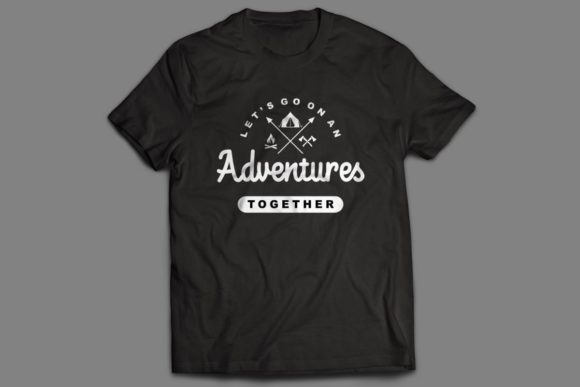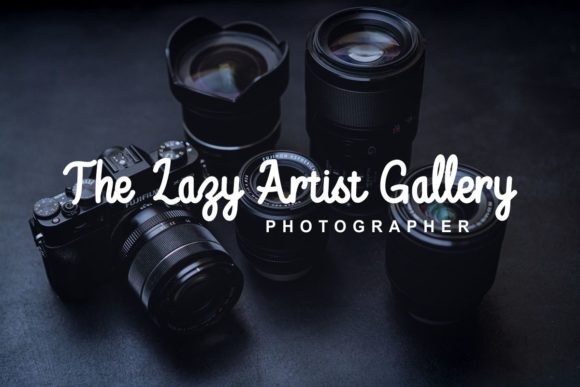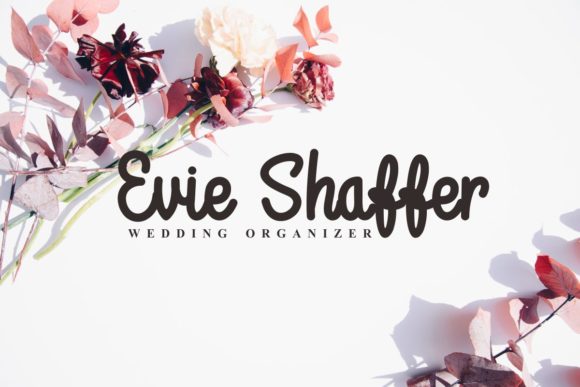
Introduction to Jessica Script Font
Have you ever stared at a blank page, eager to bring a creative idea to life, only to be held back by the perfect font? For designers, the right font can be the difference between a mediocre project and a masterpiece. It’s that moment of inspiration when the words flow effortlessly, and the design begins to take shape.
That’s where the Jessica Script Font comes in – a lovely, high-quality font that adds a touch of elegance and whimsy to any project. Its charming, playful characters seem to dance along the baseline, making it a valuable design resource for any creative endeavor.
Whether you’re working on a free download or a paid project, the Jessica Script Font is sure to elevate your design to the next level. With its transparent background and versatile style, it’s the perfect addition to any high-quality design. In this article, we’ll delve into the world of this enchanting font and explore its many uses.
Key Features of Jessica Script Font
- High-quality, elegant script font ideal for creative projects and design resources.
- Comes with transparent background, making it easy to place over any image or background.
- Perfect for use in graphic design, digital art, and other creative endeavors, including logos, invitations, and more.
- Features a beautiful, handwritten style with unique characteristics that set it apart from other script fonts.
- Designed with high resolution in mind, making it suitable for print and digital applications.
Honest Review: Jessica Script Font
I’ve had the chance to work with the Jessica Script Font, and I must say it’s been a great addition to my design resource collection. ✨
One of the things that stands out about this font is its high quality and elegant design. It’s perfect for any creative project that requires a touch of sophistication and class. The font is available for free download, which is a huge plus for designers on a budget.
Here are some of the things that work well with the Jessica Script Font:
- It’s highly customizable, making it perfect for any design project.
- The transparent background allows for seamless integration with other design elements.
However, there are a few limitations to keep in mind: ⚠️
- The font may not be suitable for large blocks of text, as it can be difficult to read at certain sizes.
- The font may require some adjustments to work well with certain design software.
Overall, I’m really impressed with the Jessica Script Font. It’s a great addition to any design resource collection, and I highly recommend it for any creative project that requires a touch of elegance and sophistication.
The Jessica Script Font is ideal for various creative projects, including wedding invitations, birthday cards, and social media graphics. Its elegant and sophisticated design makes it perfect for formal events and special occasions.
Alternatives to Jessica Script Font
1. Great Vibes Script
Great Vibes Script is a high-quality, elegant script font perfect for creative projects that require a touch of sophistication. It’s ideal for use in logos, invitations, and other design elements where a handwritten feel is desired. Great Vibes Script offers a free download with a transparent background, making it easy to integrate into any design.
Compared to Jessica Script Font, Great Vibes Script has a more refined and polished appearance, making it suitable for formal and professional applications. While Jessica Script Font has a more casual and playful feel, Great Vibes Script is better suited for high-end designs.
Yes, you can use the Jessica Script Font for a commercial project with a transparent background. The font file includes a transparent background, making it ideal for use on custom backgrounds or as a design element in your project.
What is the recommended resolution for using the Jessica Script Font in a high-quality design project?
For optimal results, we recommend using the Jessica Script Font at a resolution of 300 DPI or higher. This will ensure that the font renders clearly and smoothly in your design project, even at large sizes or when zoomed in.